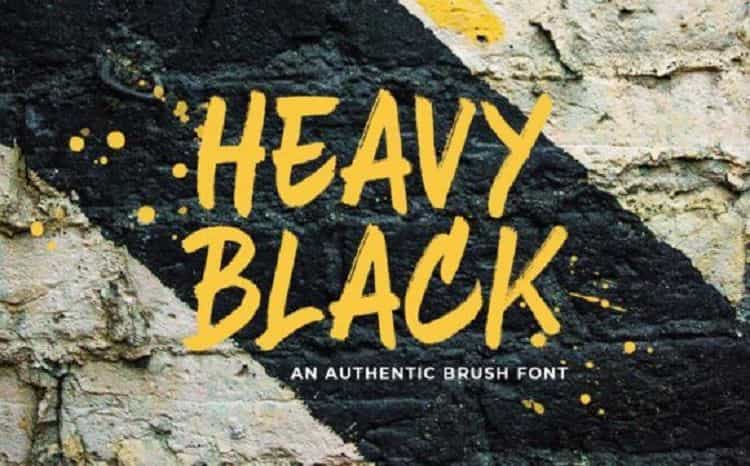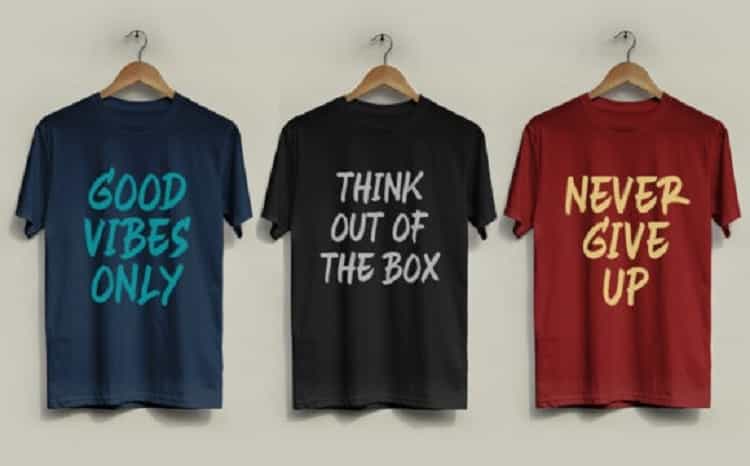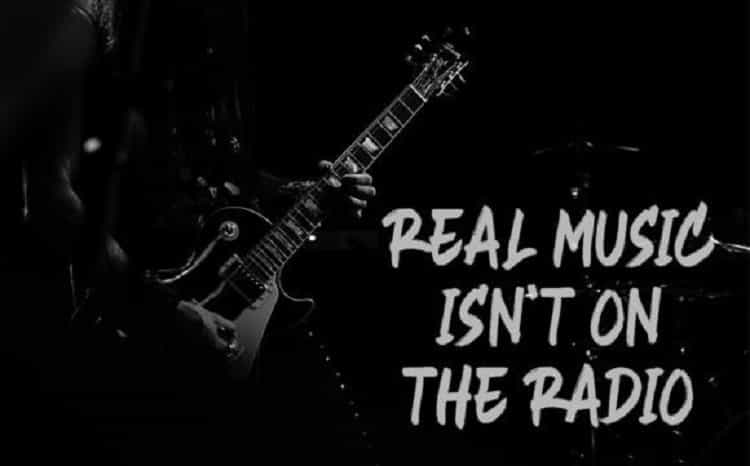
The Heavy Black Font is a brush, urban font with alternate glyphs, ligatures swashes and multilingual support. It is a font that can be applied in big and small sizes. Heavy Black is the best for branding projects, home-ware designs, product packaging or magazine headers – it can even be a stylish text overlay to any background image.